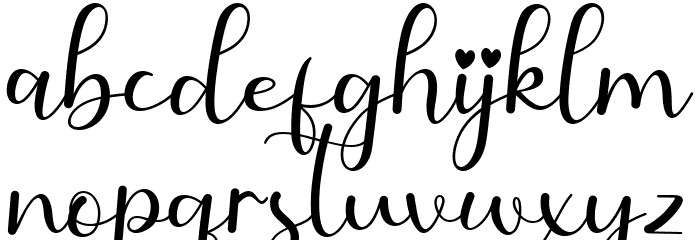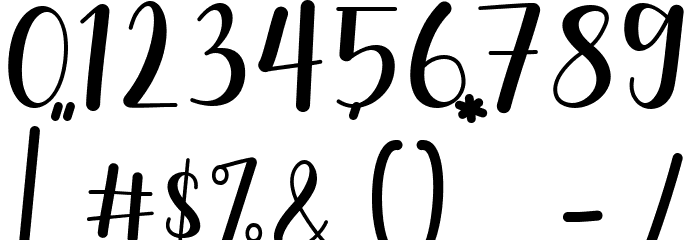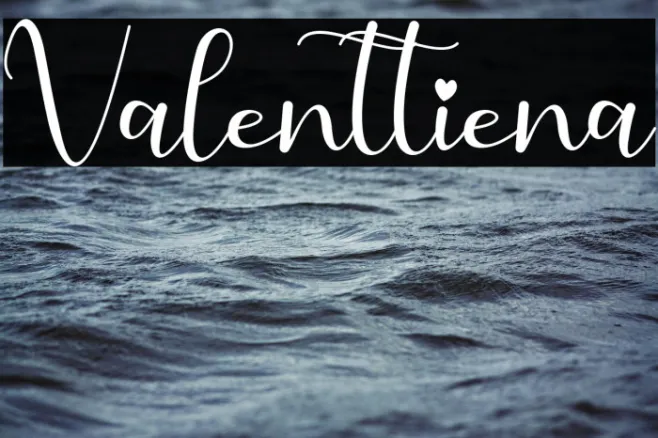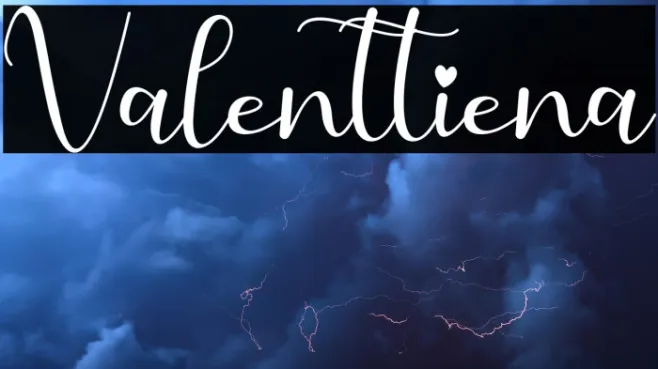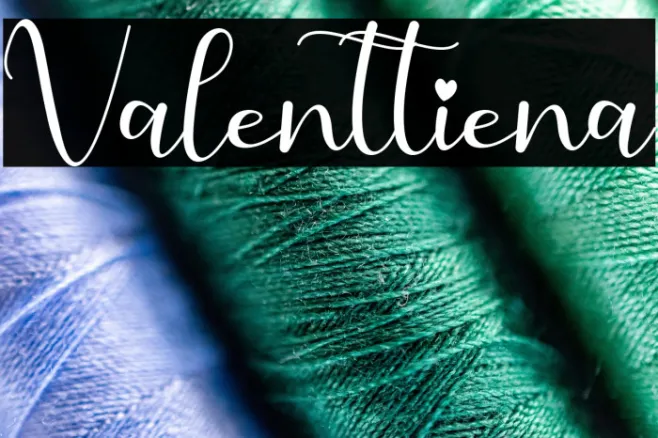
Valenttiena Font
This font features a charming and playful script style with a handwritten appearance. The uppercase letters are elegantly connected, while the lowercase letters exhibit a smooth flow with occasional decorative elements, such as hearts on the 'i' and 'j'. The numerals are bold and slightly rounded, maintaining the playful aesthetic. Special characters are creatively integrated, adding to the font's whimsical nature. The overall design is both stylish and approachable, making it suitable for a variety of creative projects.
A playful and charming handwritten script font with decorative elements.
- Proposed Projects: Ideal for wedding invitations, greeting cards, personal branding, and playful logos.